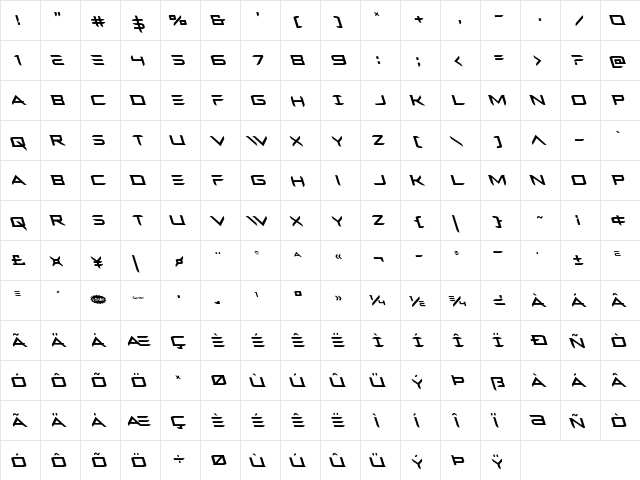
Ferret Face Leftalic Italic Font Preview
Ferret Face Leftalic Italic
Ferret Face Leftalic Italic Font Details
Design Context for Ferret Face Leftalic Typeface
Ferret Face Leftalic is a composed and adaptable typeface that performs quietly and consistently across a wide range of design contexts. Its italic angle brings a sense of urgency and motion to the letterforms.